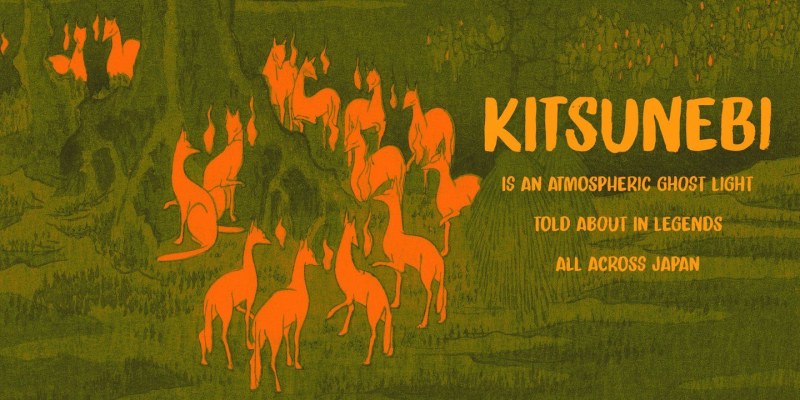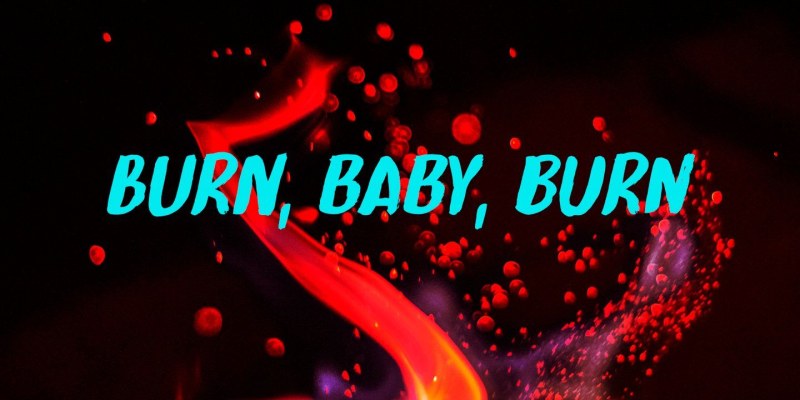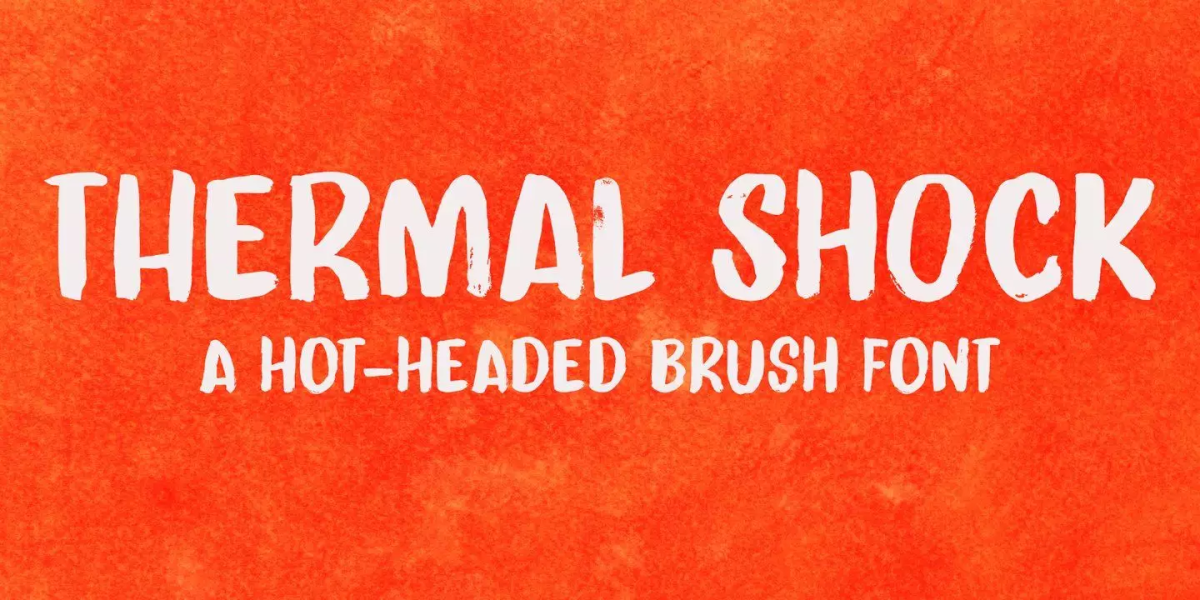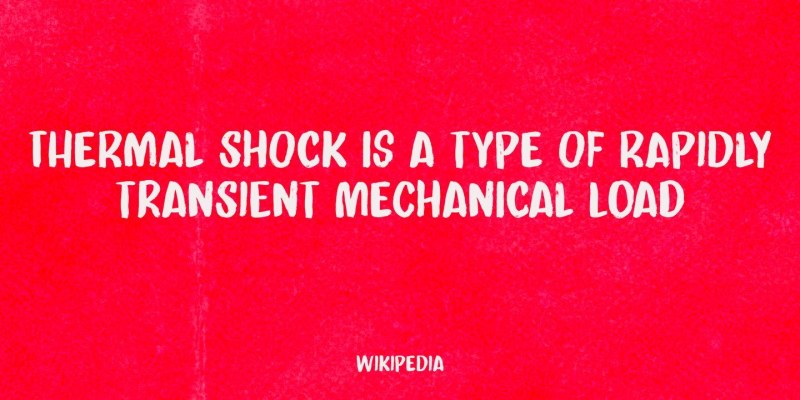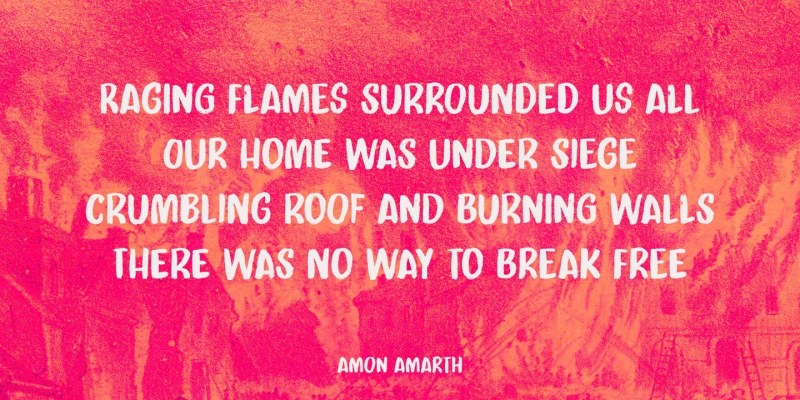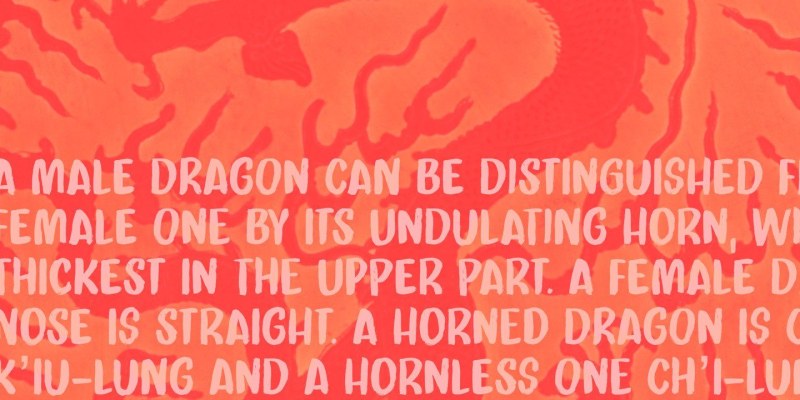
Thermal Shock Font Family
Thermal Shock font is a very nice, handmade brush font. If you ever bought any brush fonts of mine, you will know that I almost always use Chinese ink and cheap brushes…
Thermal Shock font is a very nice, handmade brush font. If you ever bought any brush fonts of mine, you will know that I almost always use Chinese ink and cheap brushes to create ‘the look’. It is always a bit of a surprise how a Chinese ink brush font turns out: I created one the other day and it looked horrible, so it was banned.. Thermal Shock turned out to be a looker. Thermal Shock comes with one set of alternate glyphs, extensive language support (including Greek and Vietnamese) and a guarantee it won’t crack in super hot designs.
With multiple weights, Thermal Shock Font Family can carry a whole identity — logo, headings, body copy and captions — consistently across print and web.
Families let you set hierarchy with weight instead of switching typefaces, which keeps interfaces fast and coherent.
Brochures, catalogues and business cards benefit from a family that covers display and text sizes.